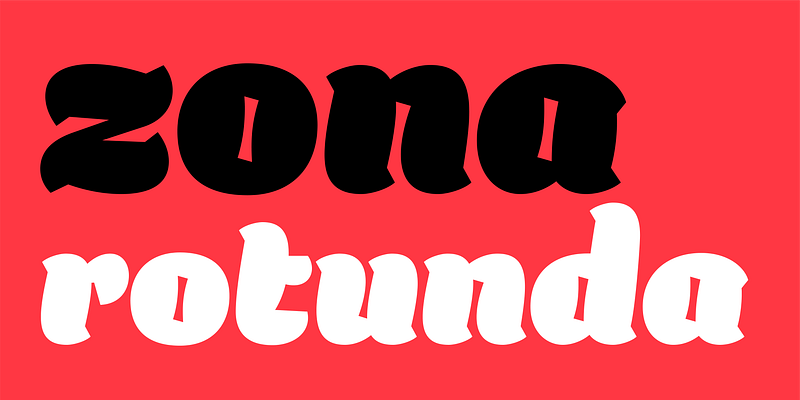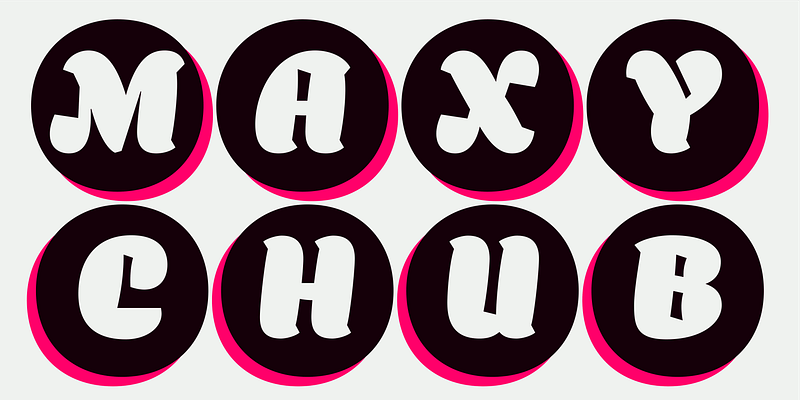
Balbum is a single style display typeface that combines heavy and fast strokes with square counters, giving the design a sense of movement and play with a sturdy structure.